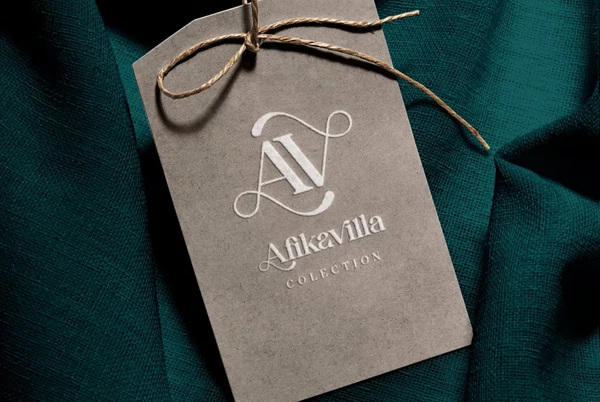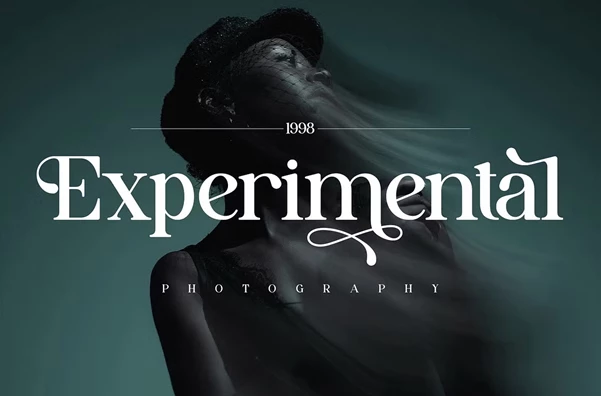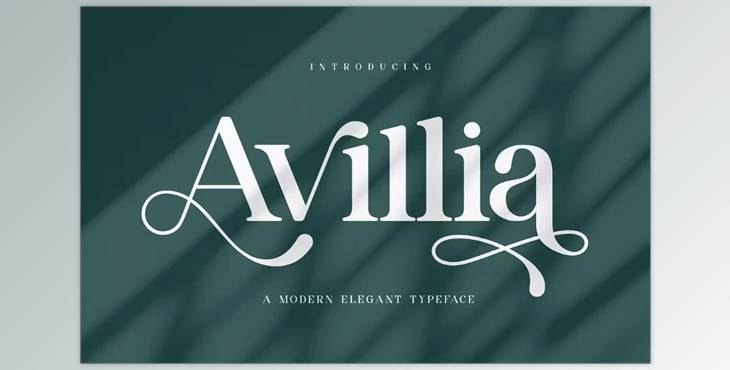
Avillia - Elegant Serif Font:
Avillia is an elegant serif font that will beautify your design works because of its fashionable appearance. The font draws inspiration from minimalist logos, making this graceful ligature typeface incredible for templates, brochures, promo videos, advertisement materials, assets for branding, and even logos. Because of its multifunctionality, it becomes an excellent addition for any designer who wants to elevate the look of their designs by adding sophistication and a contemporary touch.
- Serves a complete collection of standard glyphs and ligatures for customized designs.
- International accents are supported, making it ideal for projects in different languages.